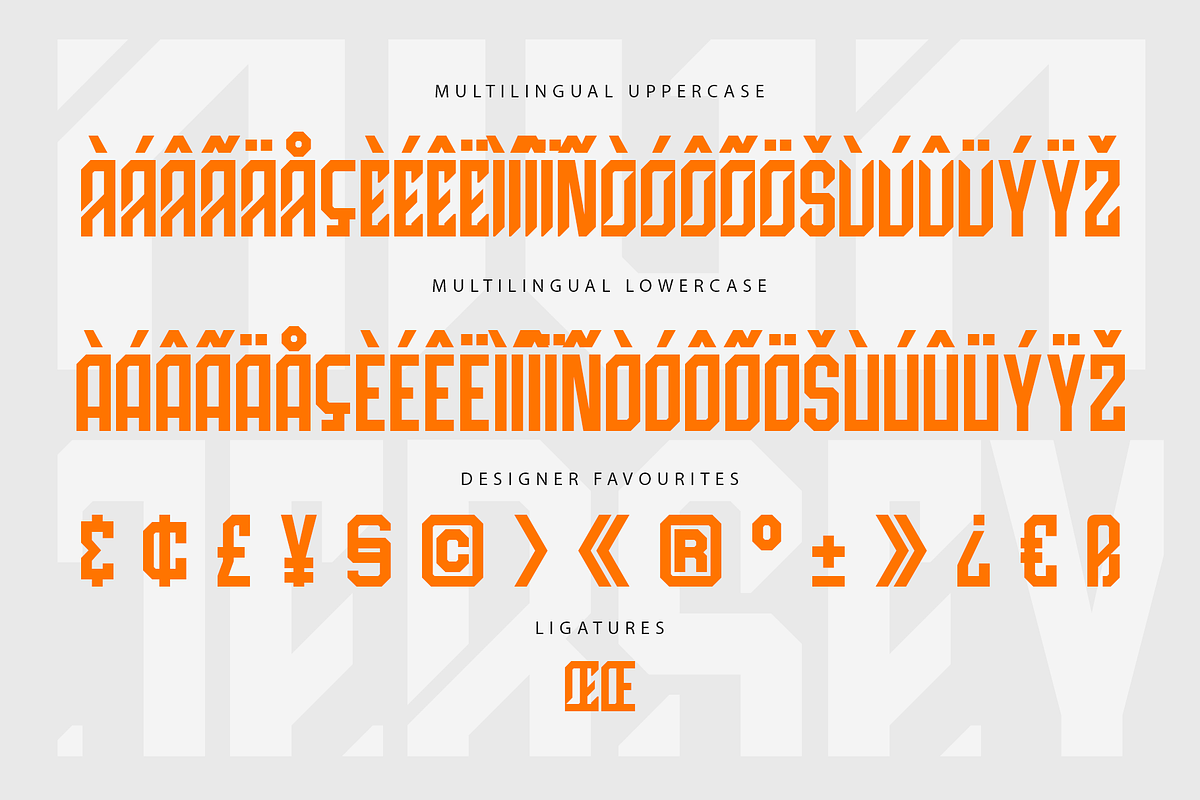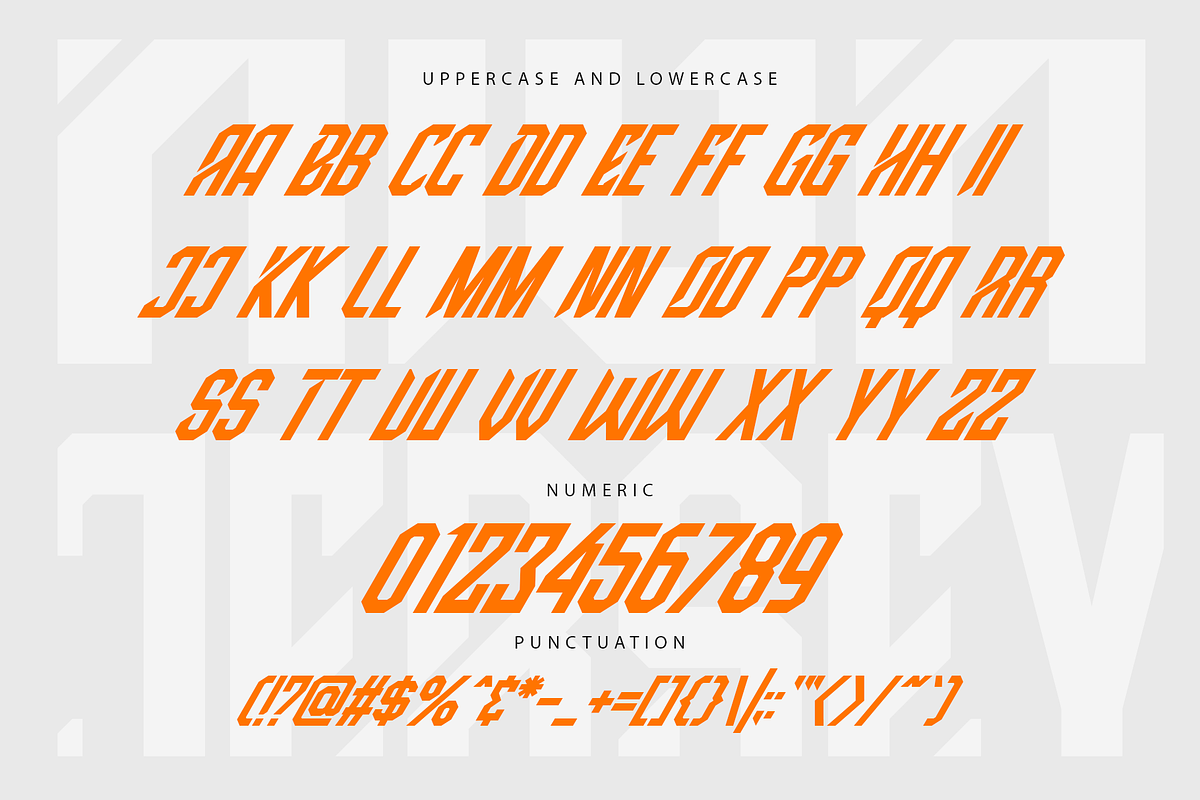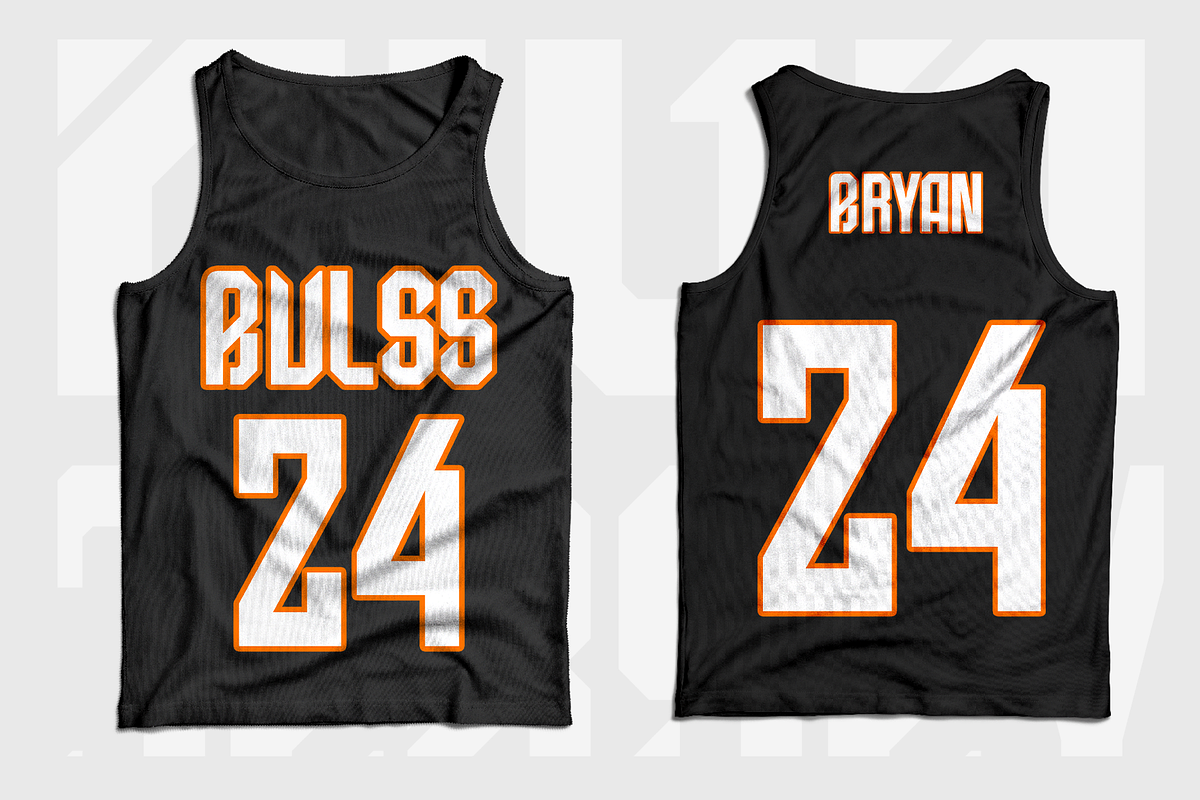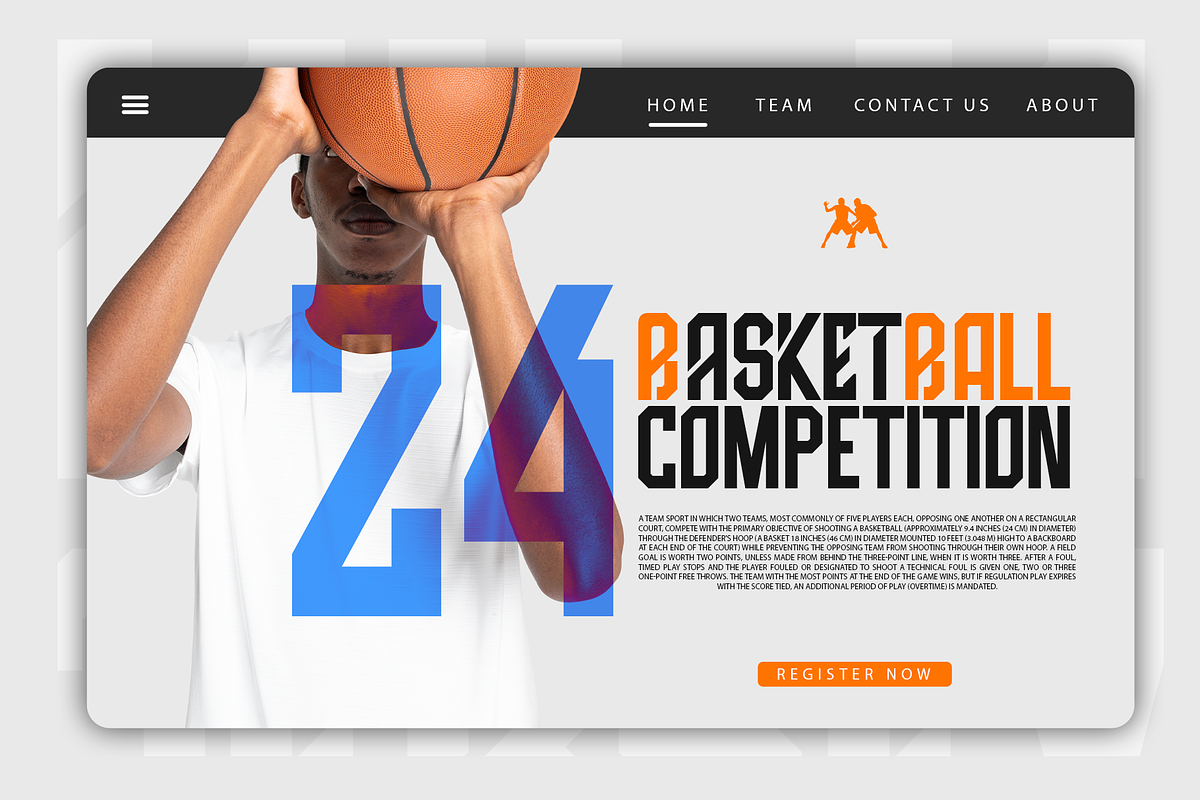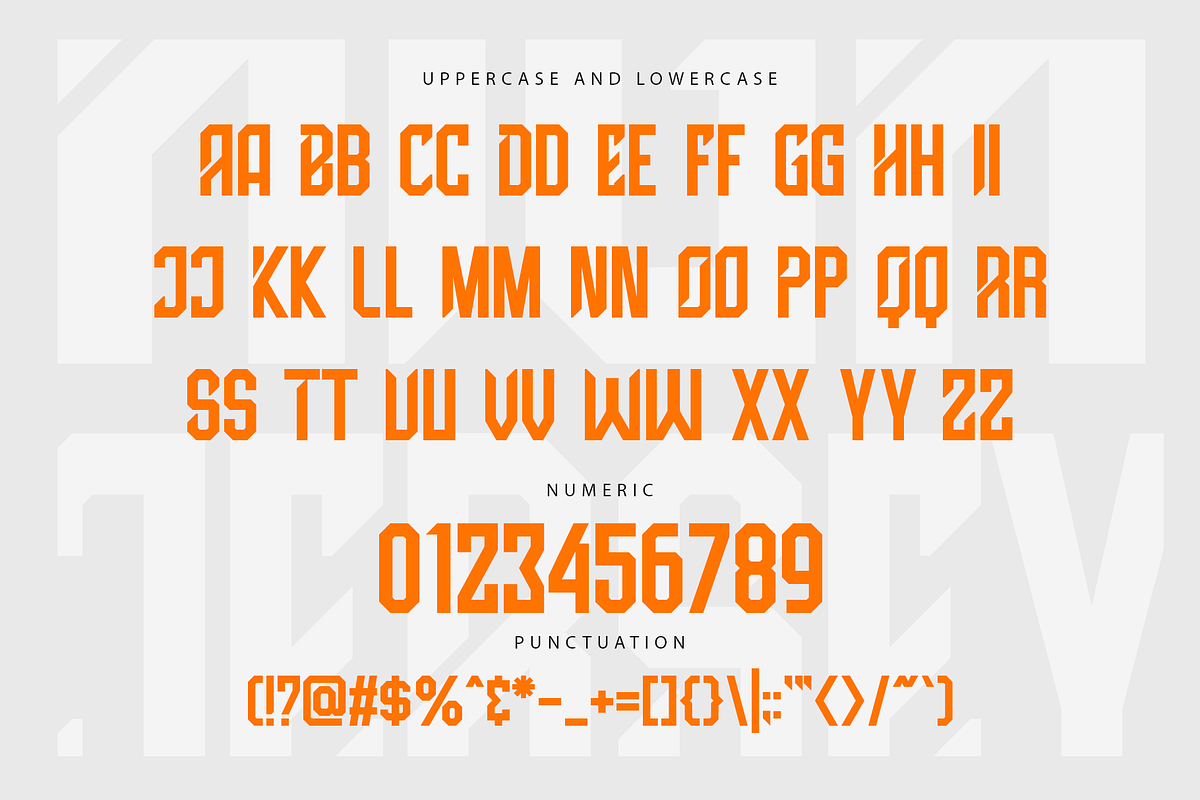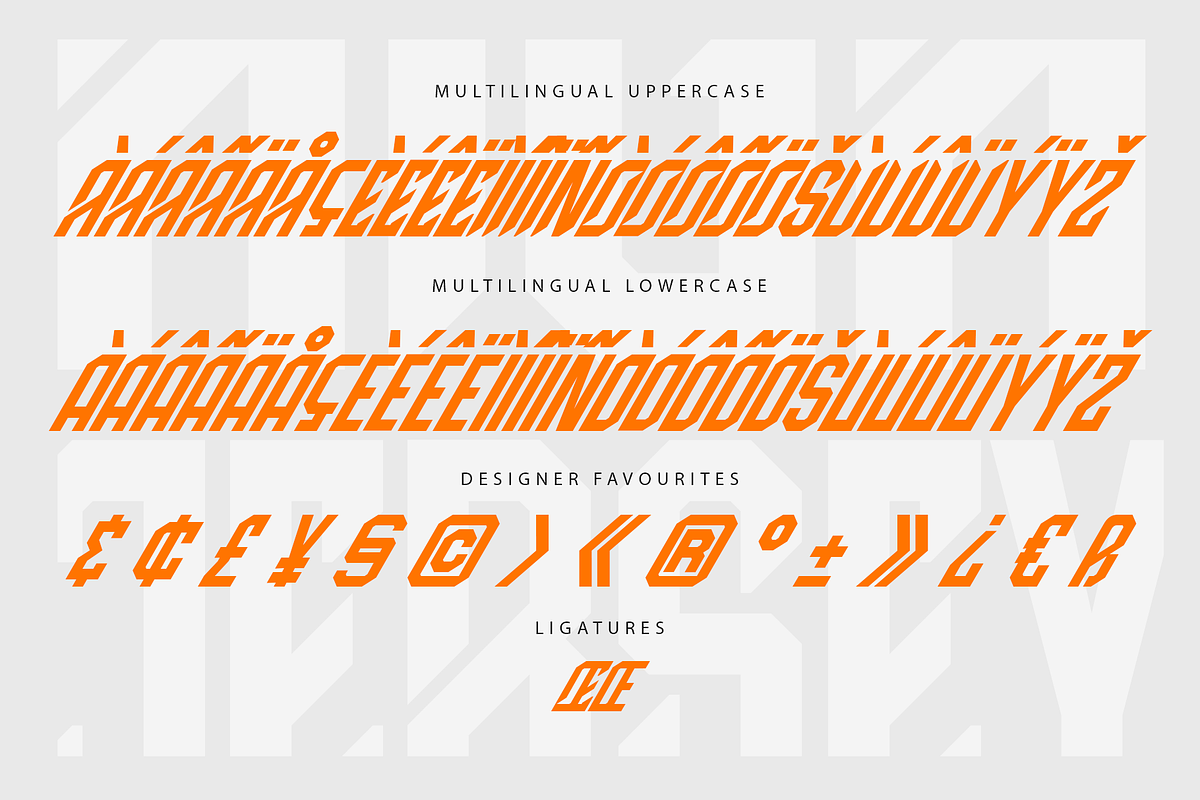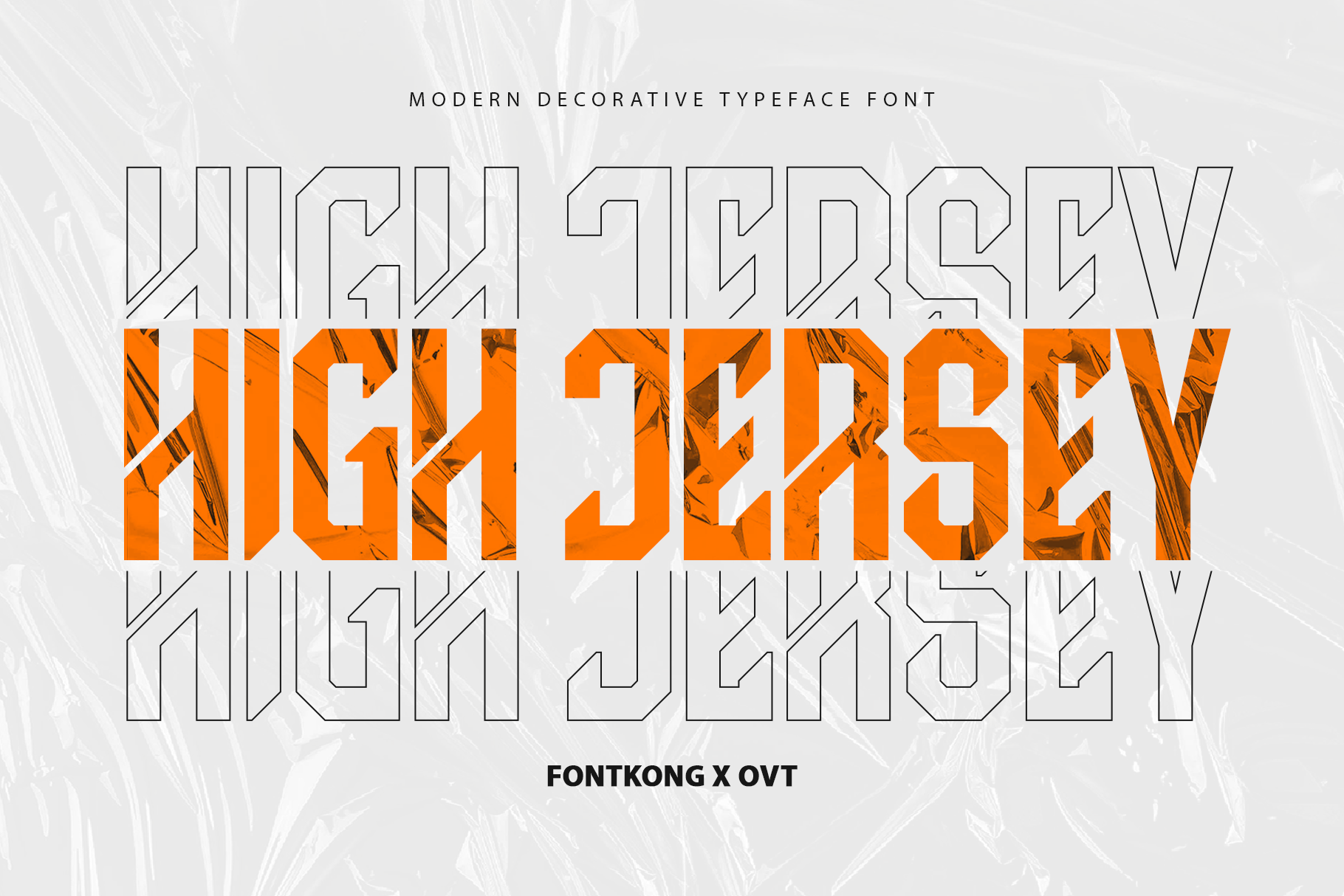
High Jersey - Modern Decorative Font
High Jersey - Modern Decorative Typeface Font
Introducing "High Jersey," a modern decorative typeface font that combines boldness with unique style to make your designs stand out. Perfect for graphic designers, advertisers, and creatives looking for a font that adds character and flair, High Jersey offers an eye-catching aesthetic that enhances any project.
Ideal for sports branding, posters, apparel designs, logos, and headlines, High Jersey’s distinctive and striking characters bring a sense of dynamism and energy. Each letter is expertly crafted to provide exceptional readability while delivering a strong visual impact, ensuring your designs capture attention and convey a powerful message.
The "High Jersey" font includes a full set of uppercase and lowercase letters, numbers, punctuation marks, and special characters. This versatile set allows for seamless integration into various design applications, from bold branding to striking editorial layouts.
Elevate your designs with High Jersey, the modern decorative typeface font that delivers bold statements with unique style.